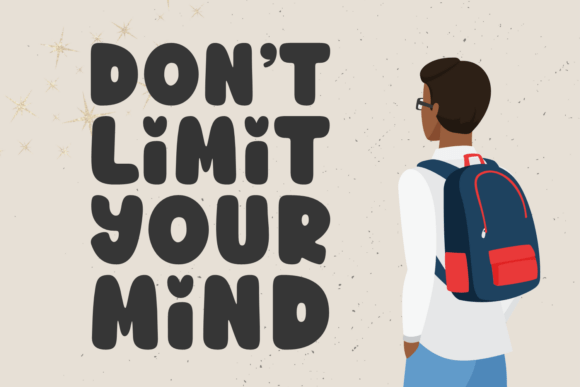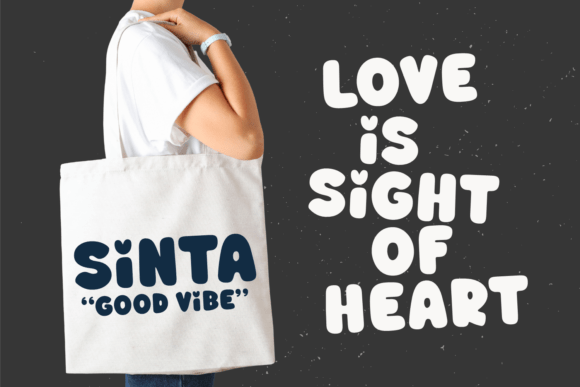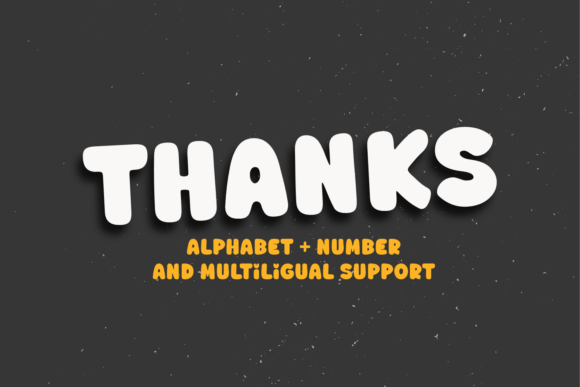
Introduction to Chikis Font
Have you ever stared at a blank canvas, struggling to find the perfect words to express your creative vision? You know the feeling when the right font can make all the difference, elevating your design from bland to grand. That’s exactly what Chikis Font does – it’s the game-changer you’ve been searching for. This stunning typeface is designed to captivate your audience, making any text shine with its unique character and fluidity.
For designers, finding the perfect font can be a daunting task, especially when working on high-quality creative projects. Chikis Font is a valuable resource that offers a transparent background, allowing you to focus on the essence of your design without distractions. With its free download option, you can experiment with this amazing font on various projects, from logos to digital displays.
Whether you’re working on a commercial design or a personal project, Chikis Font is your perfect companion to achieve that striking design impact. Its bold, yet elegant style will undoubtedly leave a lasting impression on your audience.
Key Features of Chikis Font
- Unique and Creative Design: Chikis Font is a high-quality design resource perfect for any creative project, offering a fresh and modern look.
- Transparent Background: This font features a transparent background, making it easy to use on any design without the hassle of background removal.
- High Resolution: Chikis Font is designed with high resolution in mind, making it perfect for use in print and digital media.
- Perfect for Designers: Chikis Font is an ideal design resource for graphic designers, digital artists, and anyone looking for a high-quality font to enhance their creative project.
Honest Review: Chikis Font
I recently had the opportunity to work with the Chikis Font, and I must say it’s been a game-changer for my creative project. The high quality of this font has elevated my design to a whole new level.
Here are some things that work well with the Chikis Font:
- ✨ High-quality design that’s perfect for any creative project
- ✨ Transparent background makes it easy to use with any image or color scheme
- ✨ Wide range of font styles and sizes to choose from
- ⚠️ Limited availability of bold and italic font styles
- ⚠️ May not be suitable for very small text sizes due to its large font size
Overall, I’m really impressed with the Chikis Font. It’s a great design resource that’s perfect for anyone looking to add a touch of elegance to their work. I highly recommend it to fellow designers and creatives out there.
Tips for Getting the Most Out of Chikis Font
Use the Chikis Font on a transparent background to create a clean and minimalist design. Experiment with different font sizes and colors to add visual interest to your project.
The Chikis Font is ideal for creating high-quality designs for various projects, such as logos, graphics, and presentations. Its transparent background makes it easy to use in combination with other design elements.